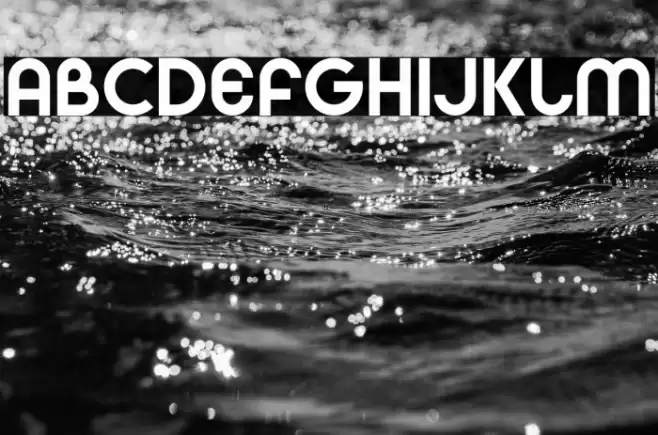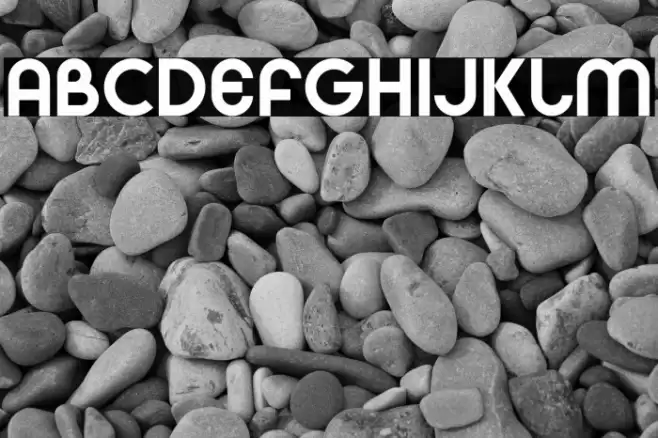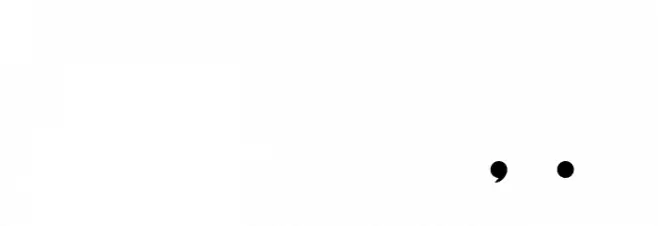
GathaSans Font
GathaSans Description
This font features a modern and geometric design, characterized by its clean lines and rounded edges. The uppercase letters are bold and uniform, with a consistent height that creates a harmonious appearance. The lowercase letters maintain the geometric style, with unique touches such as the open counters in letters like 'a' and 'e'. The font's design is minimalist yet distinctive, making it suitable for contemporary design projects. The numerals are consistent with the overall style, offering clarity and readability. Special characters are included, maintaining the same geometric and modern aesthetic.
A modern, geometric font with clean lines and rounded edges from Uncategorized fonts.
- Font: GathaSans
- Proposed Projects: Ideal for branding, advertising, and digital media projects that require a contemporary and clean look.
- Use Case: Headlines, Logos, Branding